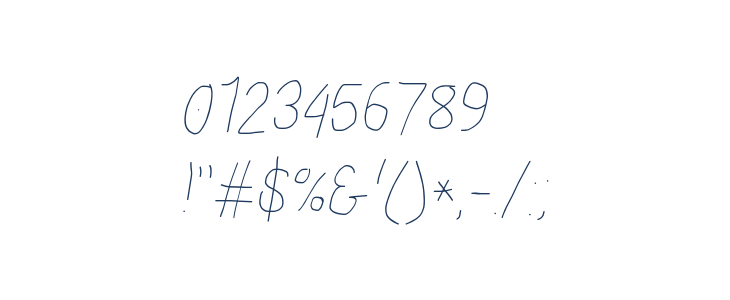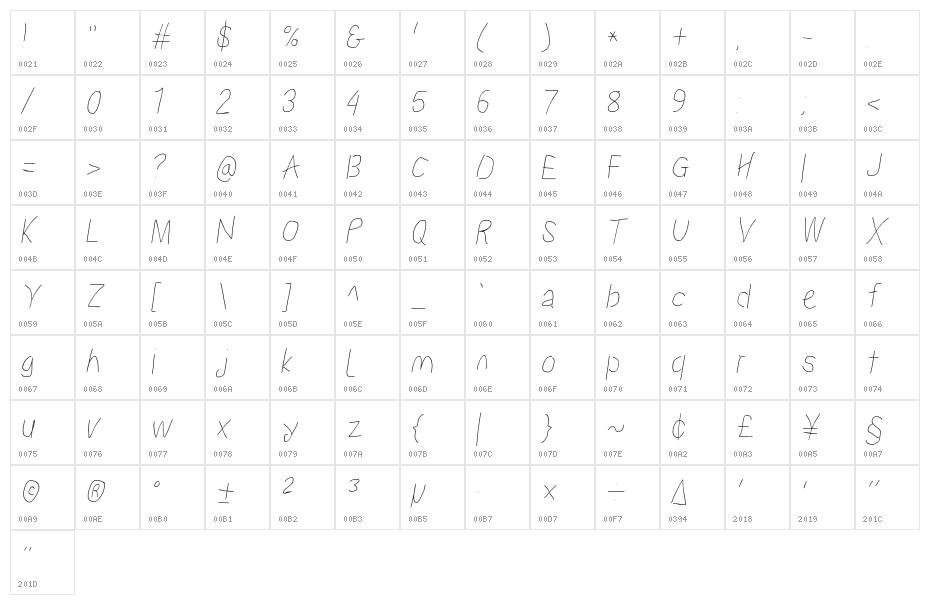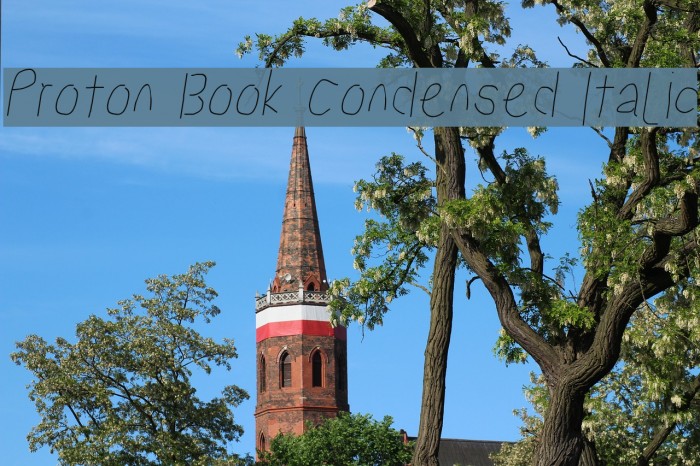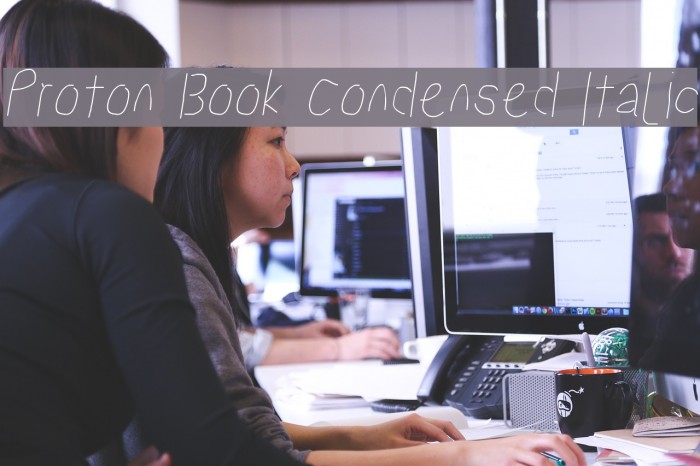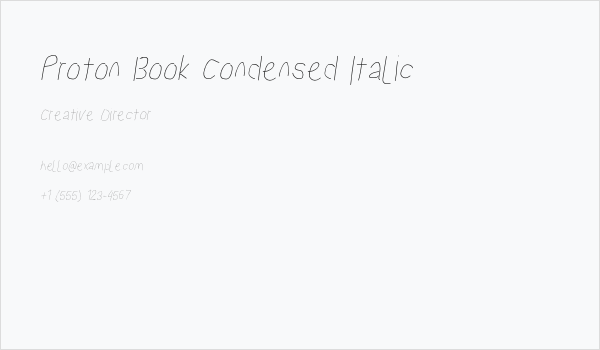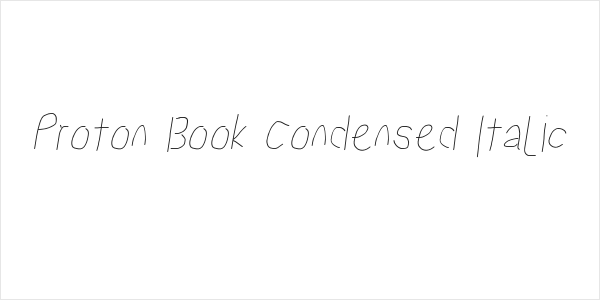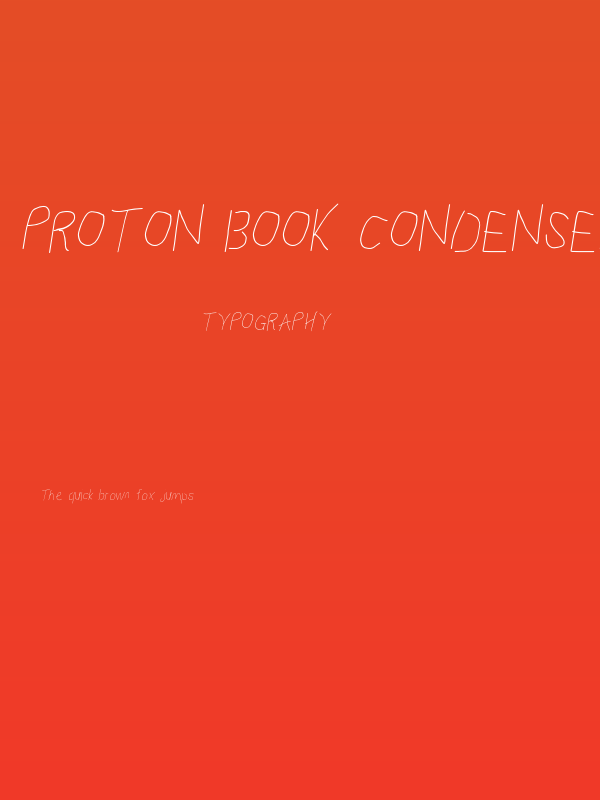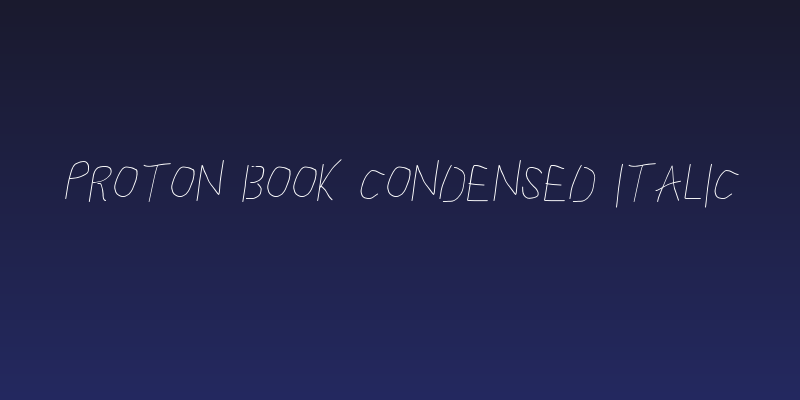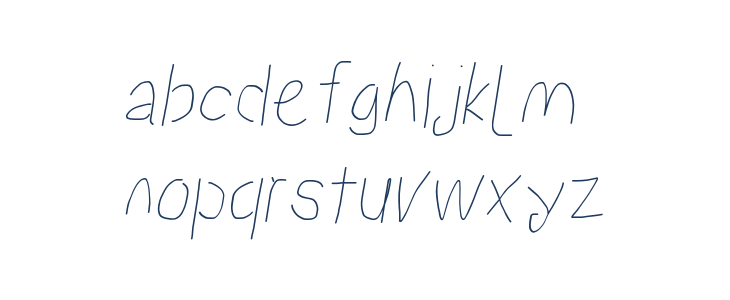
Proton Book Condensed Italic Font
Proton Book Condensed Italic Description
This font features a sleek, condensed style with an italic slant, giving it a dynamic and modern appearance. The characters are elongated and slightly tilted, creating a sense of movement and fluidity. The strokes are consistent in width, providing a clean and uniform look. The uppercase letters are tall and narrow, while the lowercase letters maintain a similar proportion, enhancing readability. The numerals are distinct and align well with the overall style, making them suitable for various applications. Special characters are included, maintaining the same elegant and streamlined design.
| Proposed Projects | Ideal for modern branding, editorial design, and digital interfaces where a contemporary and stylish look is desired. |